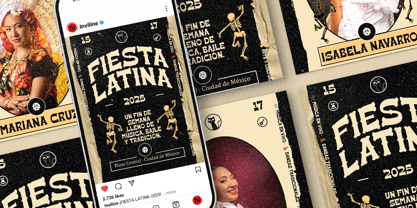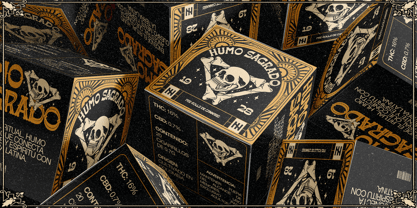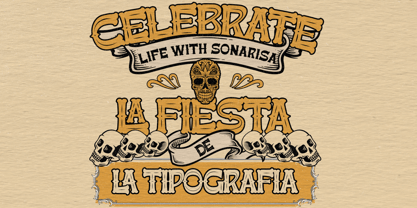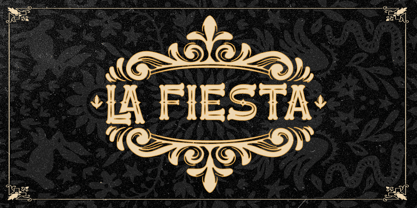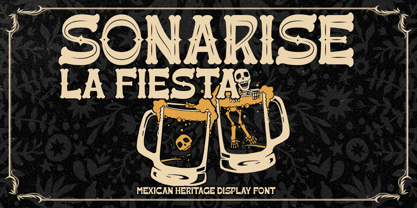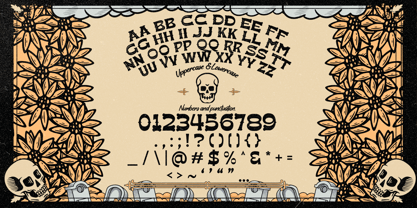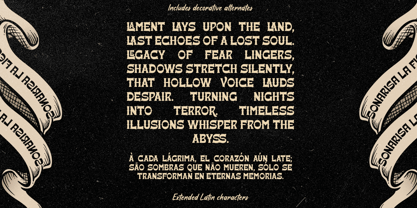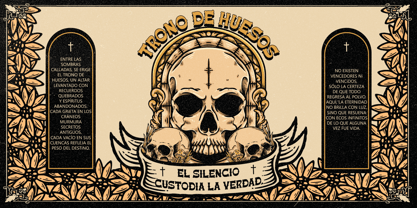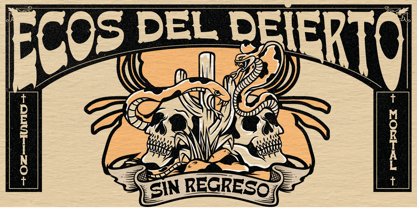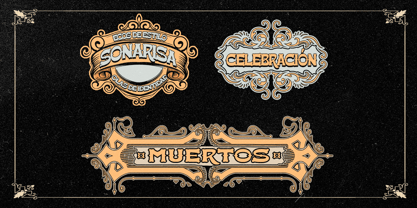
Sonarise la Fiesta
by Inviline
The Sonarise la Fiesta Font Family was designed by Virgiawan Listanto and published by Inviline. Sonarise la Fiesta contains 2 styles and family package options. More about this family
Sonarise La Fiesta is a vibrant cultural display typeface inspired by the rich traditions of Día de los Muertos. This unique font features bone-shaped letterforms, bold curves, and festive details, capturing the essence of life and afterlife while reflecting the rhythm of Latin celebration and remembrance. Each character is infused with energy, showcasing elements like skulls and ornamental strokes, making it ideal for elevating posters, event branding, and packaging with character and charm. Whether you're designing for Halloween, a Latin-themed fiesta, or soulful music artwork, Sonarise La Fiesta adds authenticity, rhythm, and legacy to your layout. What’s Included: Sonarise La Fiesta Duo Font (2 Styles: Regular, Inline), Uppercase & lowercase letters, Numbers & punctuation, Decorative alternates, Multilingual Latin support. Perfect For: Día de los Muertos posters & events, Latin food & drink labels, Music festival visuals, Tattoo-inspired design, Cultural merchandise & art.